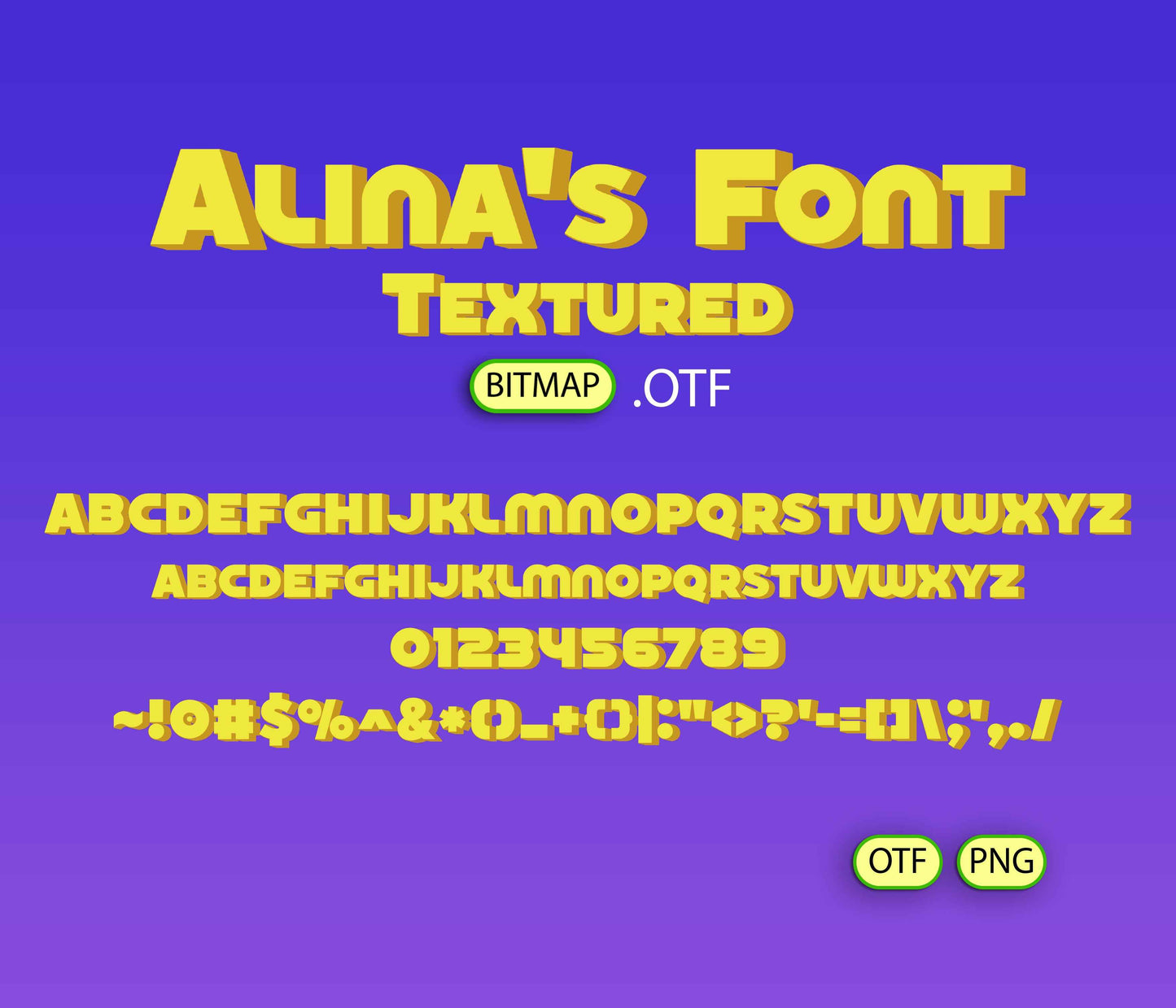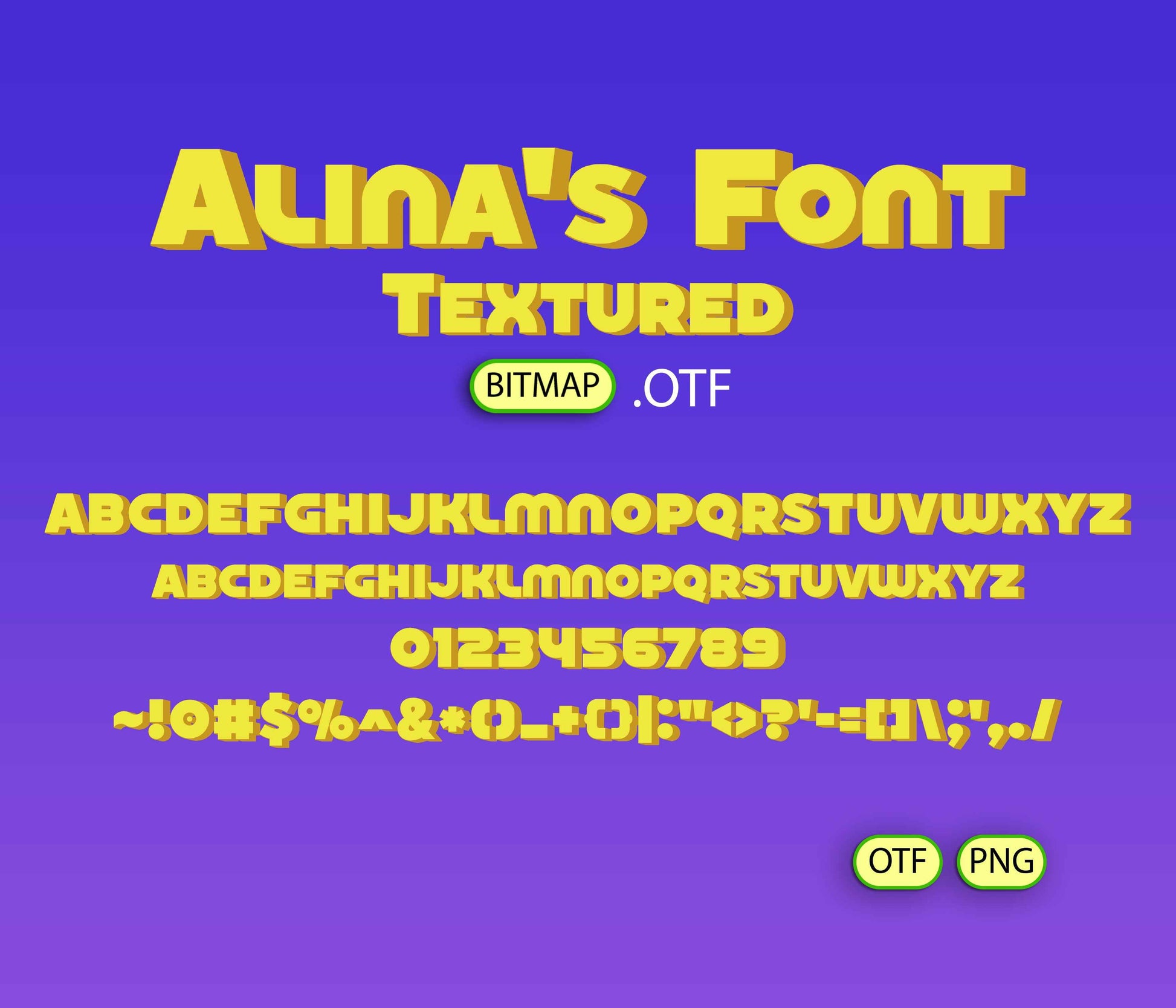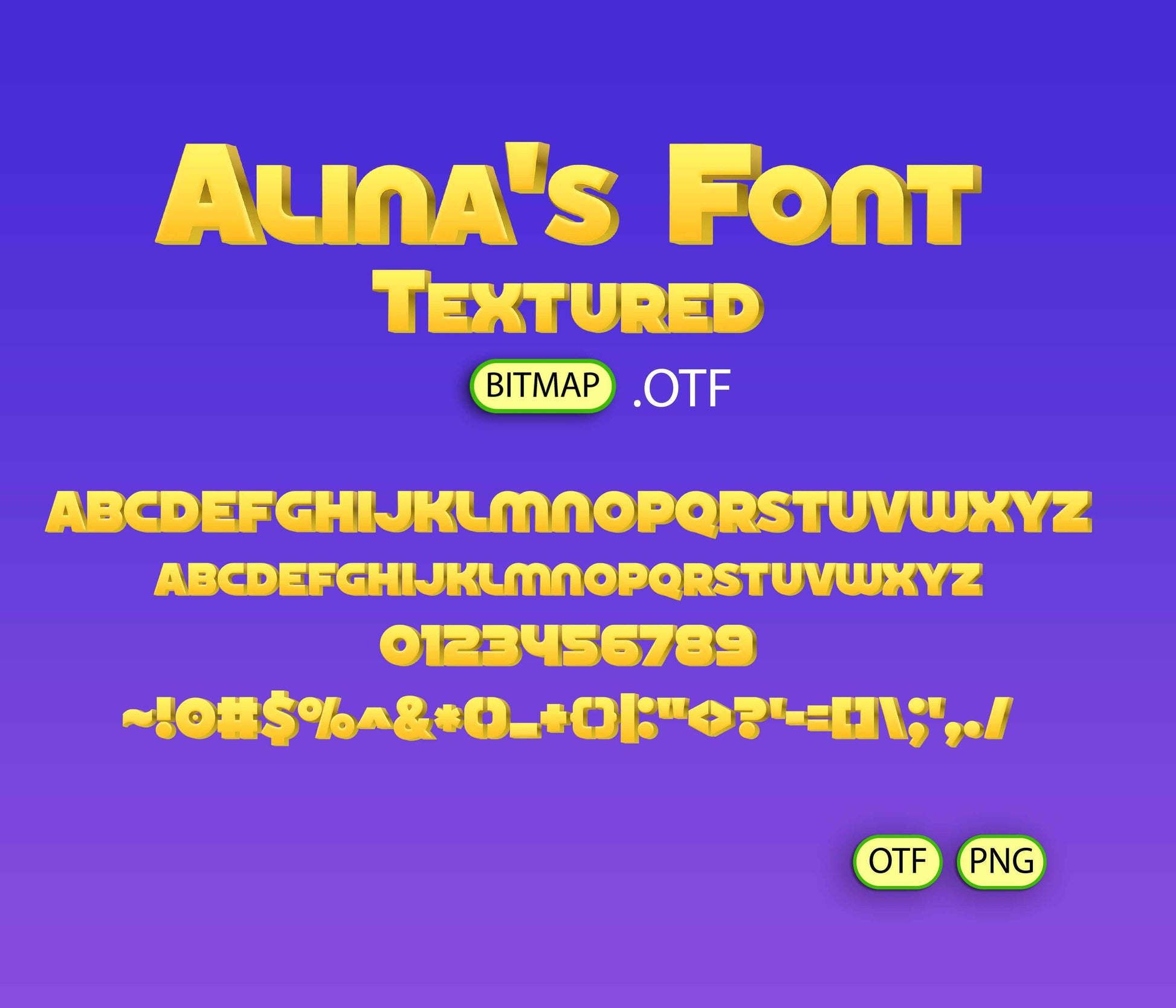
Mischievous Helpers Font Textured Bundle
Dive into the playful and quirky world of animated henchmen with our specially designed font, inspired by beloved yellow characters from a popular animated franchise. This font captures the essence of these characters, known for their unique language, comical antics, and endearing personalities. Each character in the Mischievous Helpers font is crafted to reflect the fun, animated, and slightly chaotic nature of these iconic figures, making it perfect for projects that aim to bring a touch of humor and joy.
What Font is Mischievous Helpers Font?
Envision a typeface that embodies the lively and whimsical spirit of animated sidekicks. Our Mischievous Helpers font is designed to mirror their playful and vibrant style, with a focus on bold, rounded forms and a fun-loving appearance. It includes an extensive character set, featuring alphabets, numbers, and special symbols, offering a comprehensive toolkit for a wide range of design projects, from children's content to creative merchandise.
What Can You Do With Mischievous Helpers Font?
The Mischievous Helpers font is versatile and ideal for various creative and entertaining applications:
- Themed Event Invitations: Create engaging invitations for character-themed parties or movie screenings.
- Children's Merchandise Design: Ideal for designing apparel, toys, and accessories that appeal to young fans.
- Digital Content and Social Media: Use the font to add a playful and animated touch to websites, blogs, and social media posts.
- Educational Materials: Incorporate the font into teaching resources to engage children in a fun and familiar way.
- Greeting Cards and Stationery: Design personalized stationery, greeting cards, or gift tags with a fun theme.
- Promotional Materials: Use in marketing and advertising materials for family-oriented products or events.
- Interior Decor: Create wall art, decals, or signage for children's rooms, play areas, or themed events.
- Creative Art and DIY Projects: Perfect for crafting, scrapbooking, and artistic projects inspired by animated characters.
- Merchandise and Apparel: Design unique themed clothing, bags, and accessories for fans of all ages.
- Event Signage: Develop eye-catching signs and banners for themed events, screenings, or promotions.
- Textured and Non-Textured Variants: Each font is available in both a playful, character-inspired style and a clean, non-textured version for diverse design needs.
- Comprehensive Character Set: Offers a wide range of characters for complete design versatility.
The Mischievous Helpers font is more than just a typeface; it's an invitation to a fun-filled and playful world of animated characters.